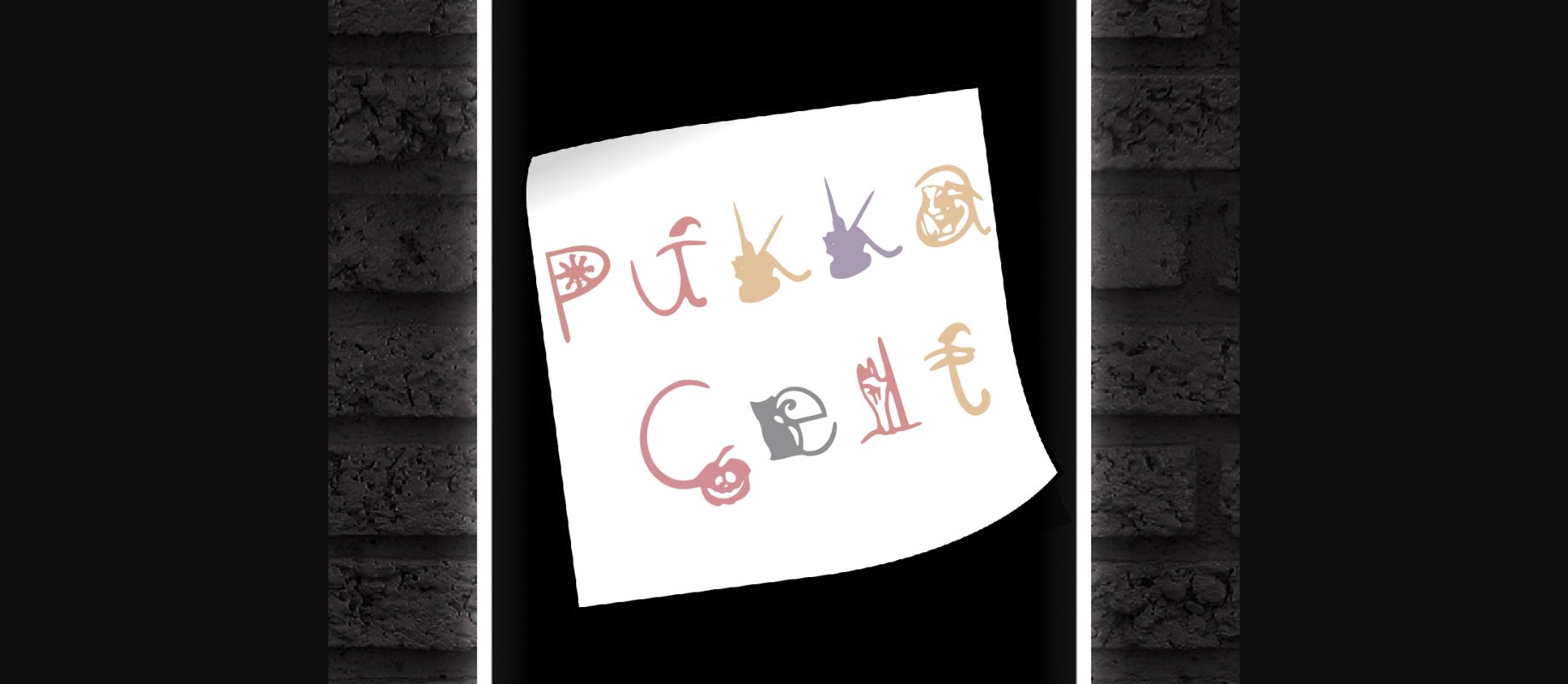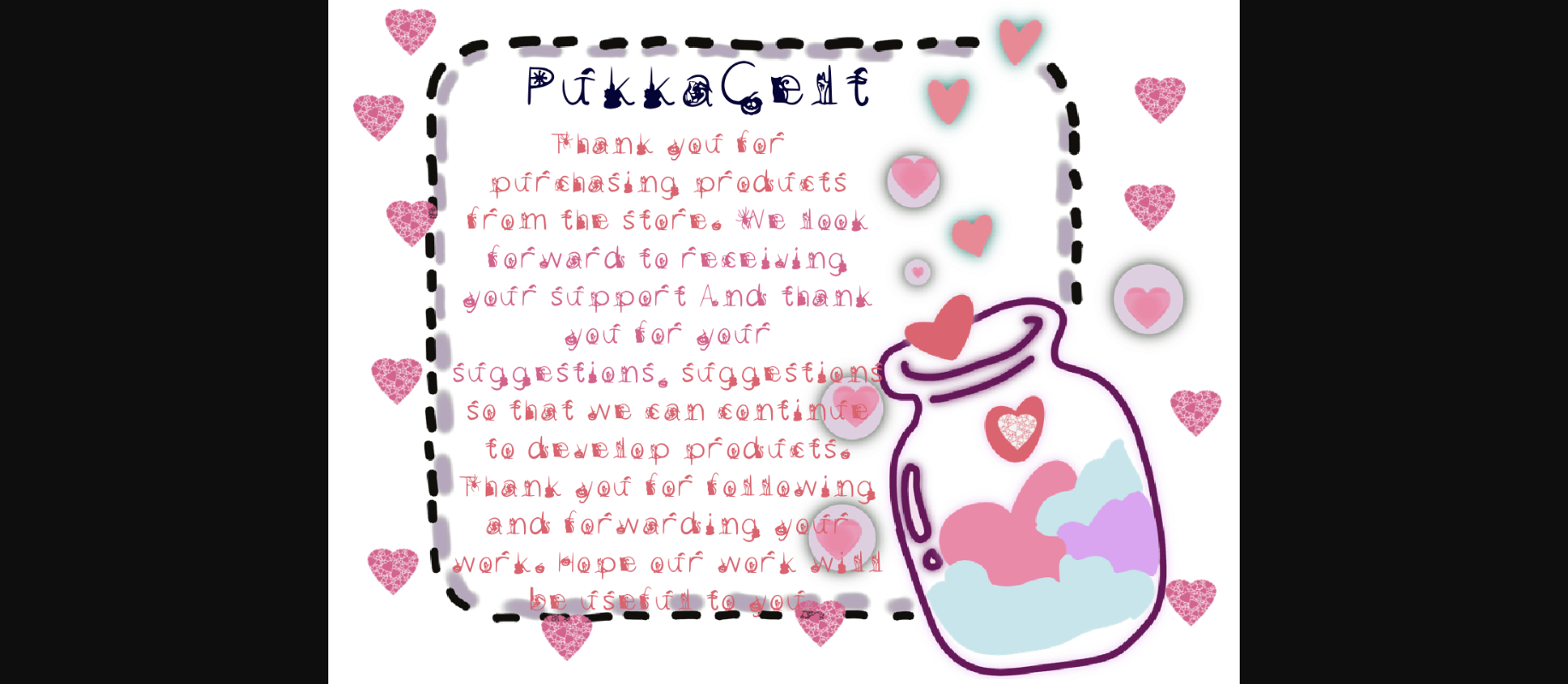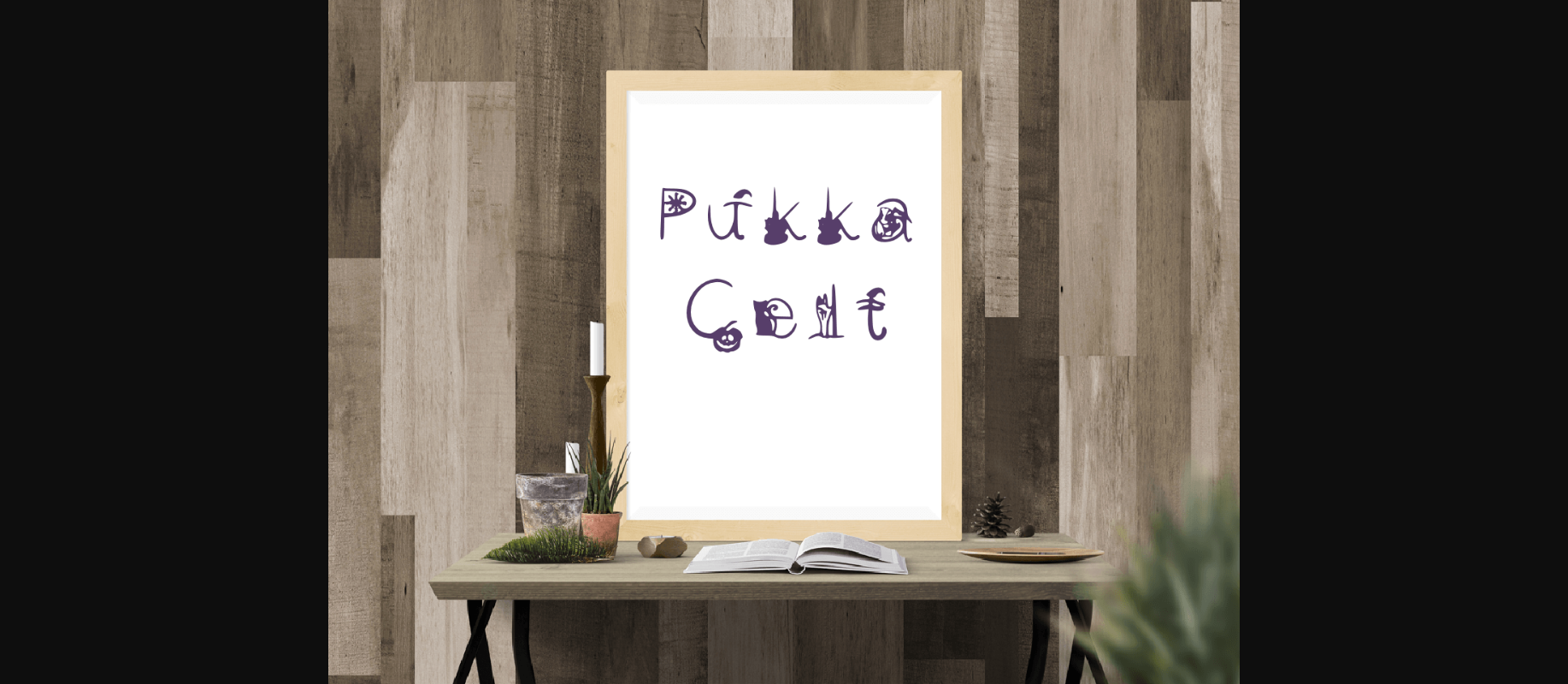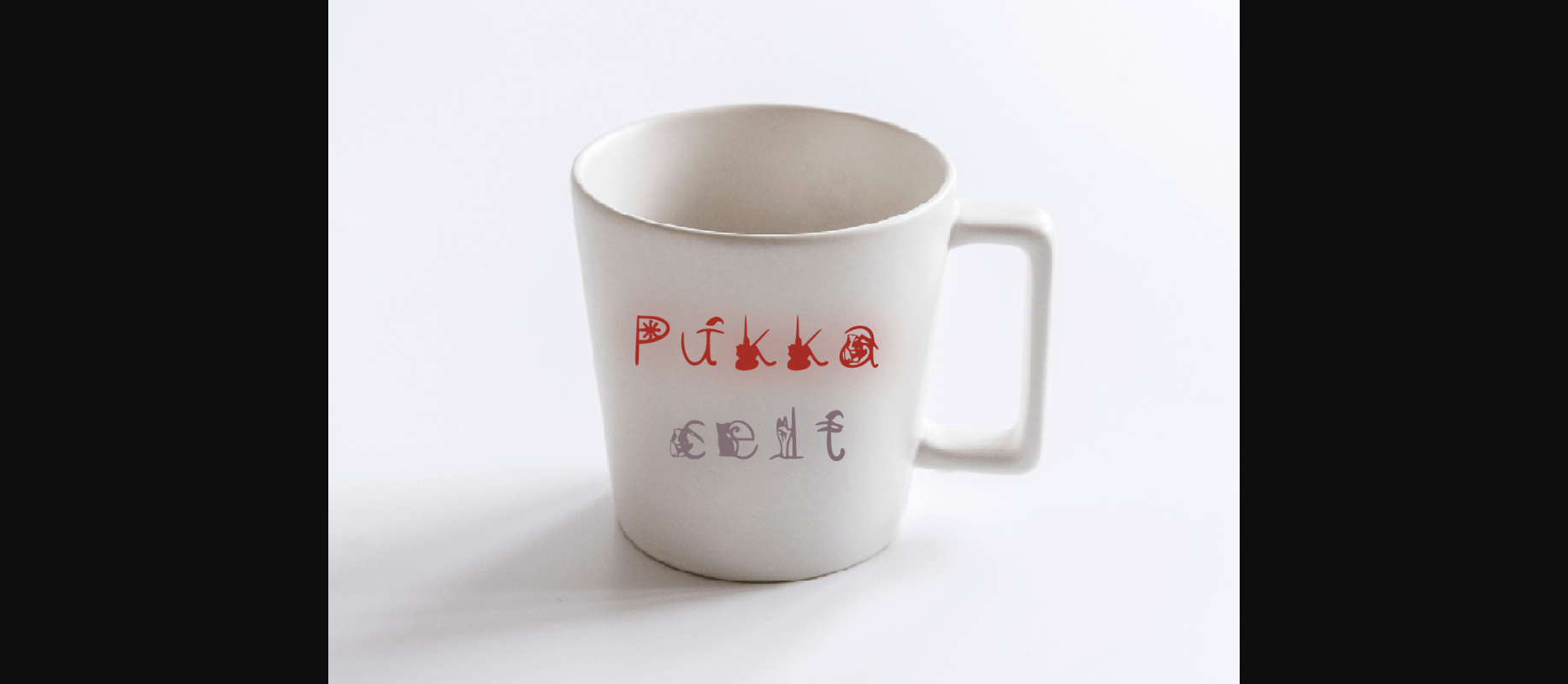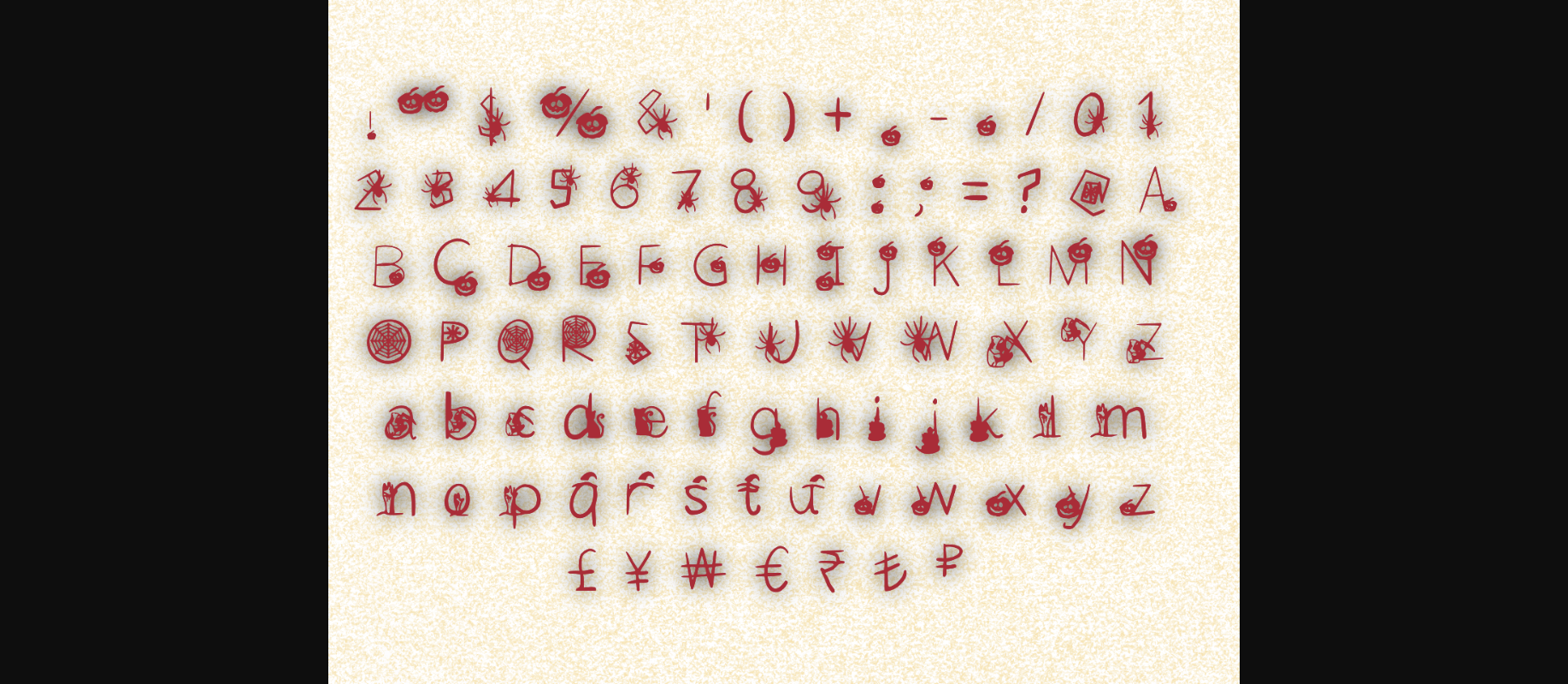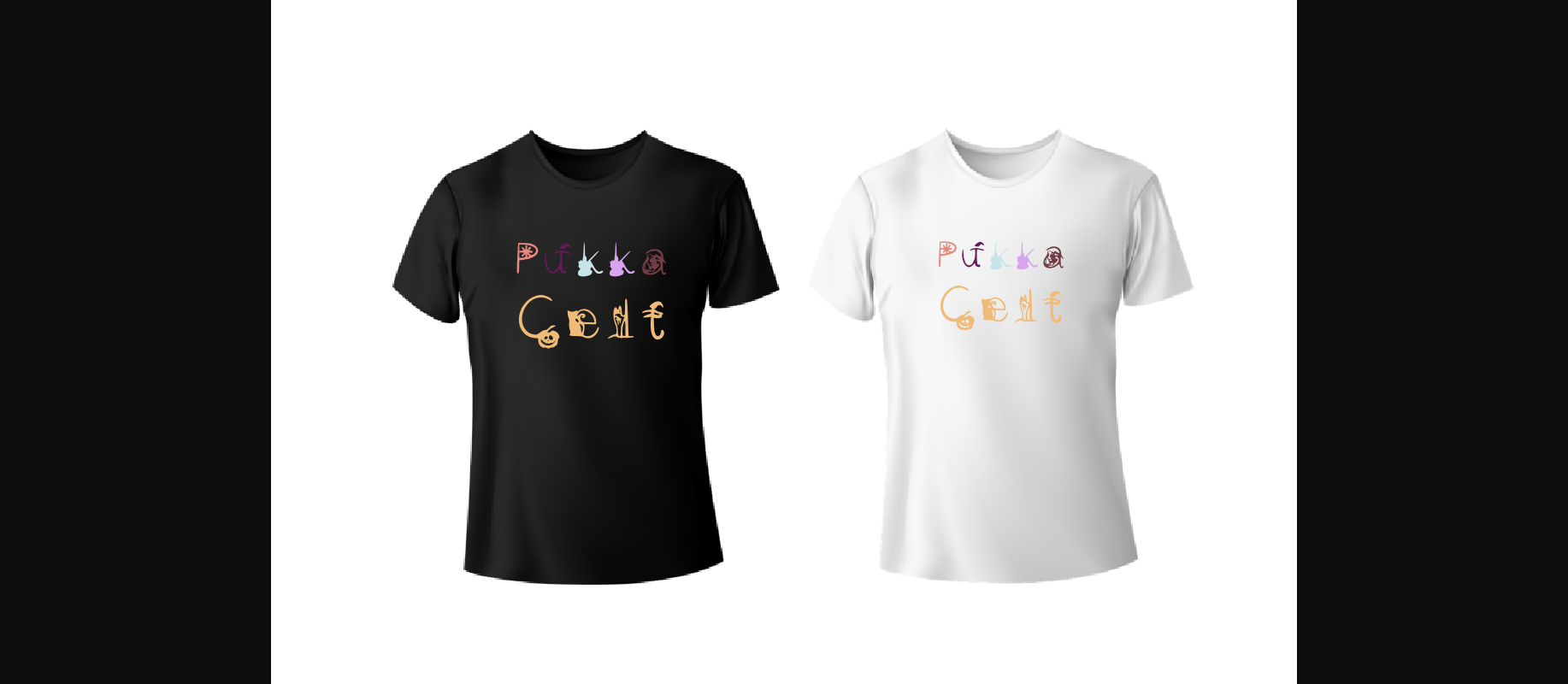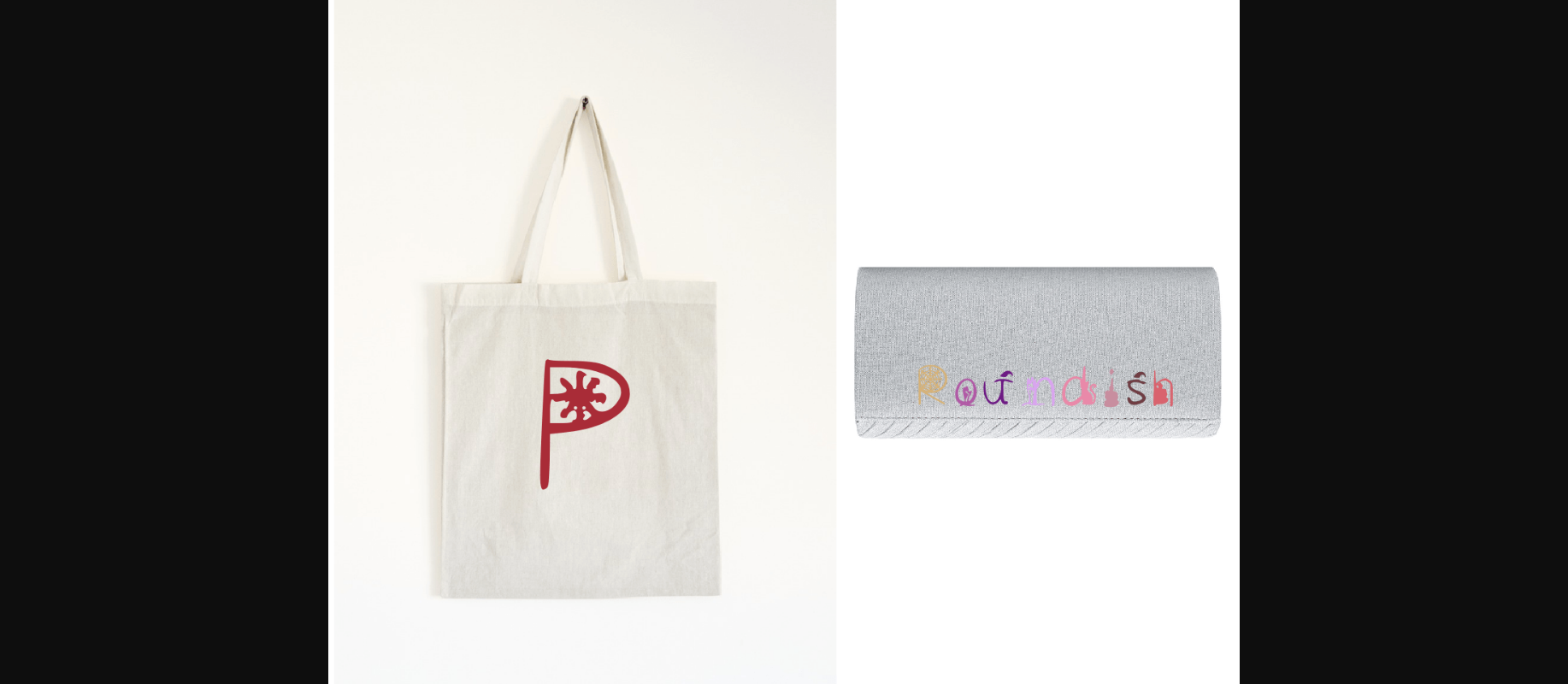
Pukkacelt Font
About Pukkacelt Font
Pukkacelt is a spooky yet beautiful decorative font inspired by Halloween. Featuring cats, spider webs, pumpkins, castles, and ghost hands, you can use it in your letters, greeting cards, and more. Make your creative project look different with Pukkacelt!